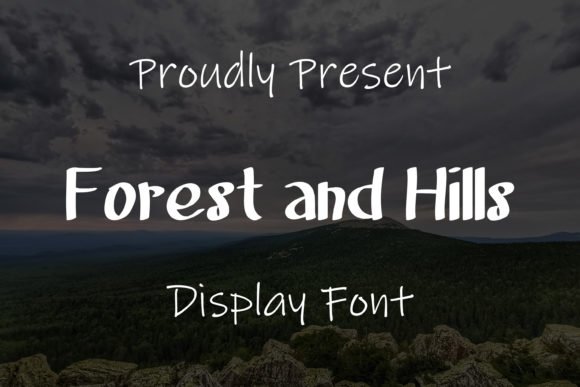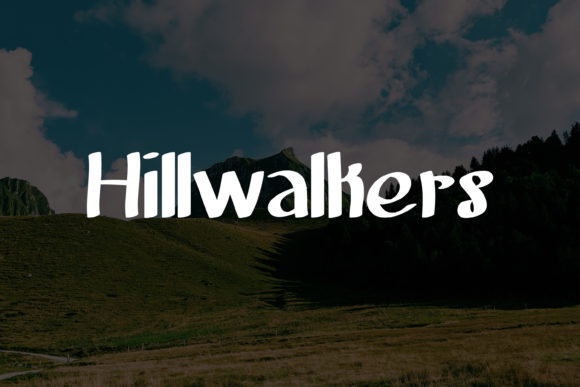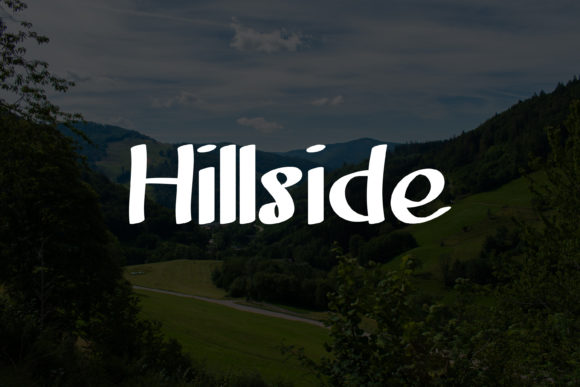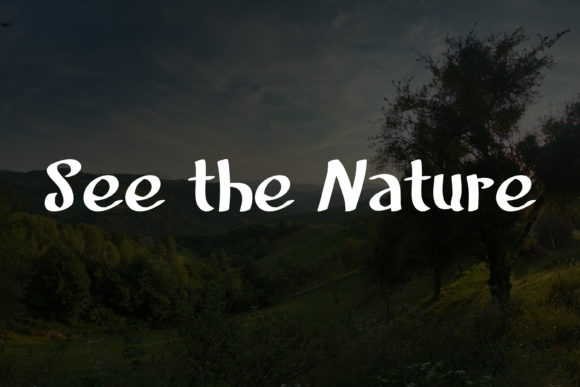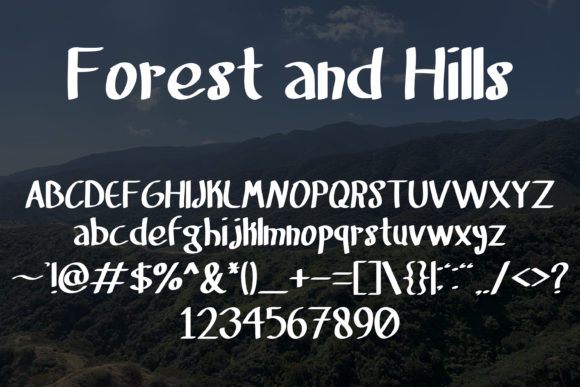
The Perfect Blend of Nature and Design
Have you ever stared at a blank canvas, trying to bring your creative vision to life? The silence is broken only by the sound of your pen scratching against paper, as ideas begin to take shape. It’s in these moments that the right tools can make all the difference. For designers, the perfect font can elevate a project from mere mortal to masterpiece.
Enter the Forest and Hills Font, a beautiful and elegant handwritten display font that’s sure to make your creations stand out. Its simple yet striking design makes it perfect for adding a touch of sophistication to any project. Whether you’re working on a poster, a logo, or a social media graphic, this font is sure to add a level of visual appeal that’s hard to ignore.
With the Forest and Hills Font, you’ll be able to add a unique touch to your designs that sets them apart from the crowd. Its versatility and beauty make it a valuable addition to any designer’s toolkit, and its ease of use makes it perfect for designers of all levels.
Key Features of “Forest and Hills Font”
- Font Family: Forest and Hills Font is a unique, handwritten font that comes in multiple weights and styles, including regular, bold, italic, and bold italic.
- Character Count: The font contains over 800 glyphs, including a wide range of characters, punctuation, and symbols, making it suitable for various types of content.
- Unique Characteristics: The Forest and Hills Font features a natural, handwritten feel with subtle irregularities and variations in line width, giving it a unique and expressive character.
Forest and Hills Font Review
I recently had the chance to work with the “Forest and Hills Font” and I must say it’s a mixed bag. Let’s start with the good stuff:
- ✨ The font is incredibly versatile and can be used in a variety of settings, from outdoor adventure brands to nature-inspired wellness websites.
- ✨ The design is unique and eye-catching, with a natural, hand-drawn feel that sets it apart from more generic fonts.
- ✨ The font family includes a range of weights and styles, making it easy to find the perfect fit for your project.
- ⚠️ The font may not be the best choice for projects that require a lot of text, as the characters can become crowded and difficult to read at smaller sizes.
- ⚠️ The font’s natural, handwritten feel can sometimes make it difficult to read for users with vision impairments.
Overall, I think the “Forest and Hills Font” is a great choice for projects that require a unique, nature-inspired design. However, it’s not without its limitations, and designers should be aware of these potential issues before choosing to use it.
Tips for Getting the Most Out of the Forest and Hills Font
Use the Forest and Hills Font to create a natural and earthy feel in your designs. Pair it with earthy colors and textures to enhance its effect.
Experiment with different font sizes and styles to create visual interest and hierarchy in your designs.
The Forest and Hills Font is ideal for:
Outdoor-themed designs, such as park maps, hiking trails, and nature-inspired graphics.
Earth-friendly and eco-conscious branding and marketing materials.
Designs that require a natural and organic feel, such as wellness and fitness materials.
Pacifico is a beautiful, elegant script font ideal for creating a warm and inviting atmosphere in designs. It’s perfect for branding, packaging, and editorial content. Pacifico is more cursive and has a softer feel compared to Forest and Hills Font, which makes it suitable for designs that require a touch of sophistication and romance.
What is the recommended font size for Forest and Hills?
The recommended font size for Forest and Hills depends on the context and intended use. For body text, a font size between 12 and 14 points is suitable. For headings and titles, use font sizes between 18 and 24 points. Remember to adjust the line spacing and leading to ensure readability and visual balance.